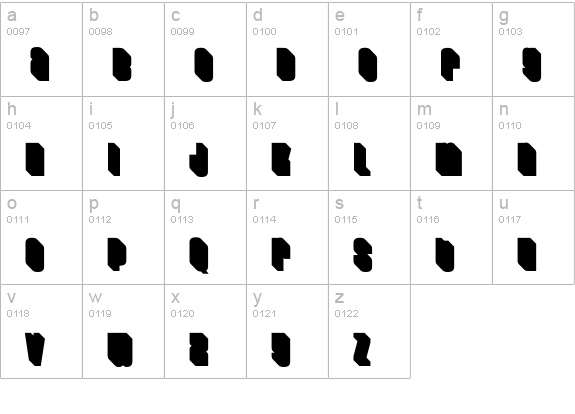
HouseGothicHG23Cond THRDSHA Font Details
HouseGothicHG23Cond THRDSHA is a striking and modern font that exudes a sense of strength and sophistication. With its unique blend of sharp angles and sleek lines, this font is perfect for adding a touch of edginess to any design project. Whether you're creating a bold logo, eye-catching poster, or stylish website, HouseGothicHG23Cond THRDSHA is sure to make a statement. And the best part? This fantastic font is available for free download at FontsMarket.com! So go ahead and elevate your designs with HouseGothicHG23Cond THRDSHA today.